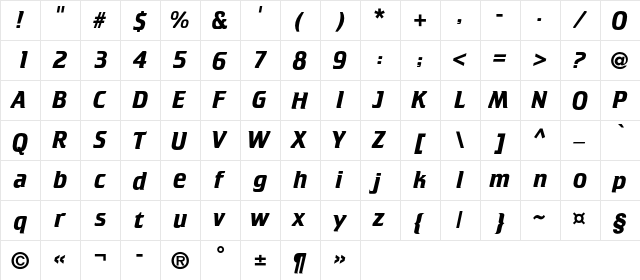
CricketBoldC Regular
Design Context for CricketBoldC Typeface
CricketBoldC takes a measured approach to typography — its balanced proportions and neutral character make it a reliable workhorse for both digital and print work. Its bold stroke weight gives it real presence on the page.